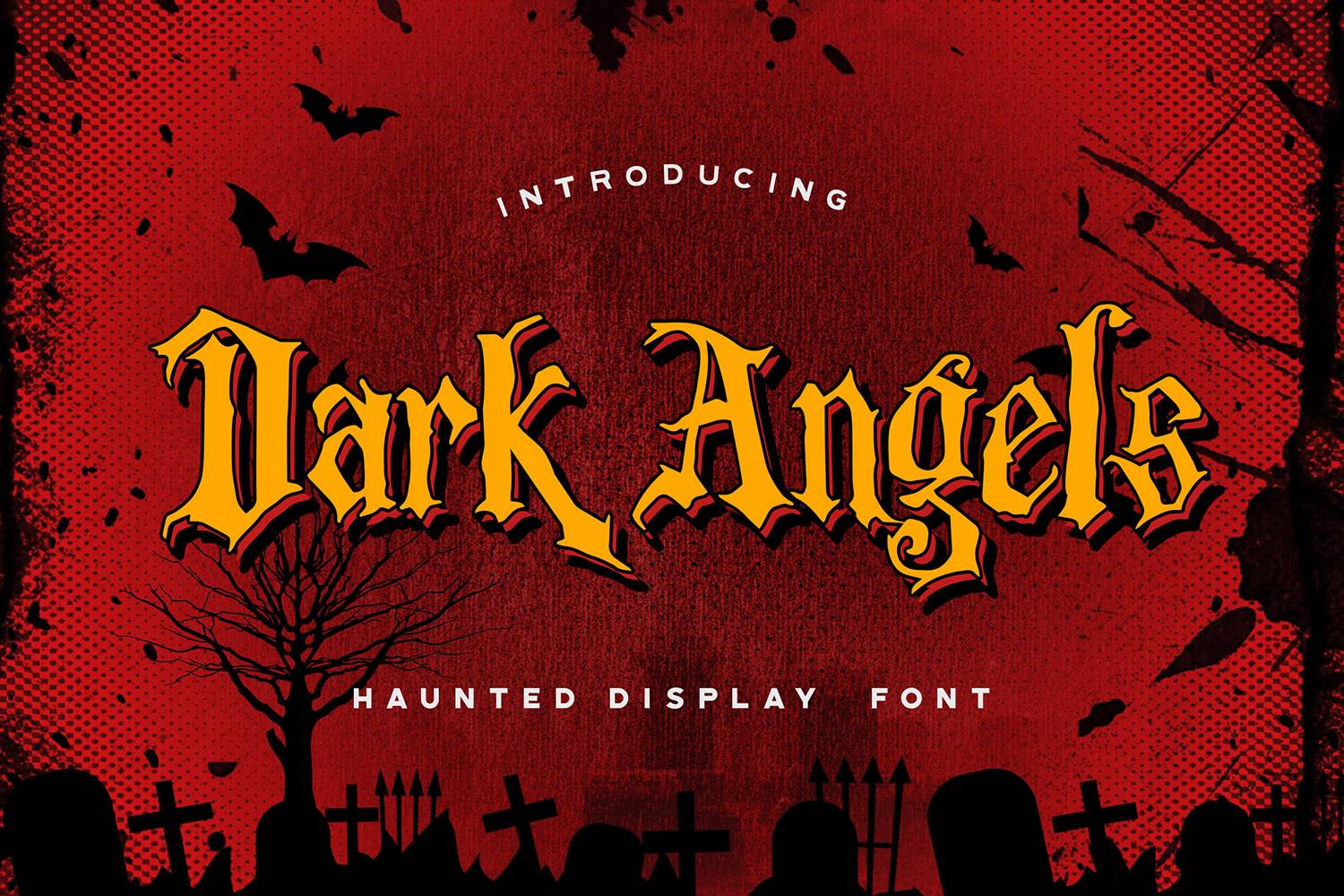
Dark Angels is a bold blackletter font with sharp, angular strokes that evoke a gothic, medieval aesthetic. Its dramatic, high-contrast forms and intricate details make it ideal for creating a dark, mysterious mood in branding, posters, and headlines where strong visual impact is desired. This font works best in settings that call for a vintage, edgy, or heavy metal vibe rather than body text.
Dark Angels Font
About Dark Angels Font
| Font family | Dark Angels Font |
| Designer | Virgiawan Listianto |